Best 12 Thick Display Font Picks for Your Modern Designs
Not all fonts can capture the audience’s attention at first glance. Many designers fail to create eye-catching designs because of the wrong font selection. Amidst increasingly bold and expressive design trends, thick display font styles become a popular choice in creating a bold, standout, and characterized visual.
Using a thick display font helps designers create a bolder and memorable visual. Besides giving a modern feel, this font style can make text look more dominant without many additional elements.
This article will discuss the best thick display font styles that can be used for various design needs. These fonts offer various nuances from a playful and retro to vintage and modern aesthetics.
What is a Thick Display Font?
A thick display font is a display font with bold, standout letter characters and usually has a friendlier approach. This font style can instantly draw the audience’s attention, making it effective for big-sized texts and the main visual elements in design.
It is no wonder that designers often use this font type for poster titles, brand logos, product packaging, promotional banners, content’s thumbnails, social media design, or even merchandise designs. With its bold and distinct look, this font can make a design more standout, modern, and memorable for the audience.
Borner Wilds
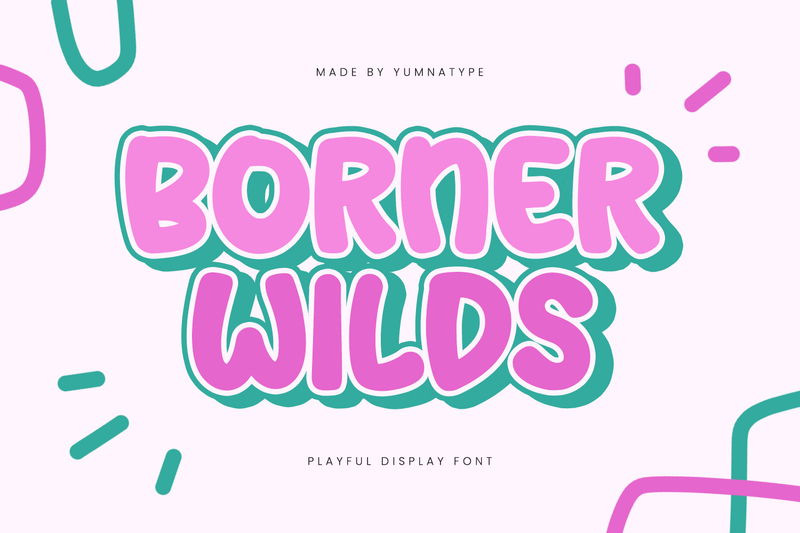
Borner Wilds presents a thick display font with bold letter characters, unique decorative details, and a playful all-caps look. Its low contrast and consistent letter proportions make it appear balanced and memorable, while also creating a strong, striking visual.
This font is suitable for various design needs such as logos, festival posters, product packaging, shop branding, or even merchandise that appears energetic and distinctive. With its strong and recognizable visual appearance, Borner Wilds can make a design look more unique, eye-catching, and impressive for the audience.
Fancies Toys
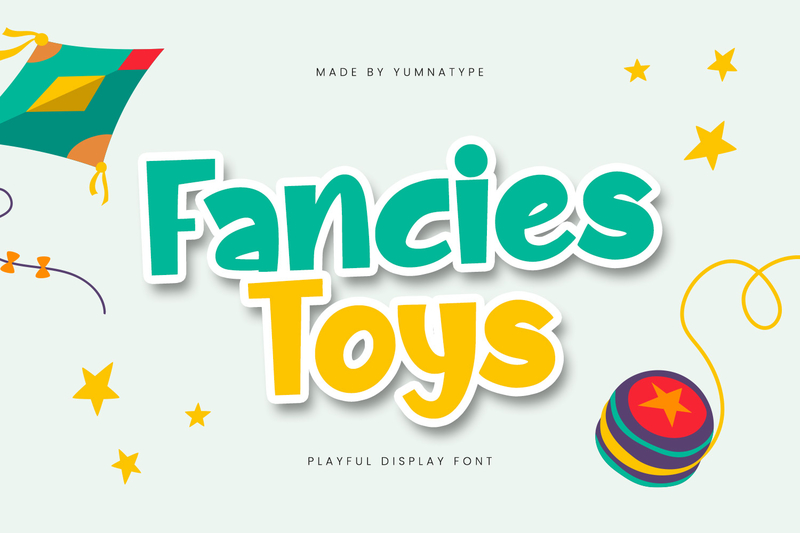
If you are looking for a font with a playful and cheerful feel, you should consider Fancies Toys. Its bold, rounded, and friendly letter characters make this font more attractive and easy to recognize in any design.
Fancies Toys is ideal for use in various design projects. These usages include branding children’s toys, event posters, social media content, and even YouTube thumbnails with a fun and eye-catching look. With an expressive and enjoyable visual, your design will feel livelier, warmer, and more memorable for the audience.
Nice Twins
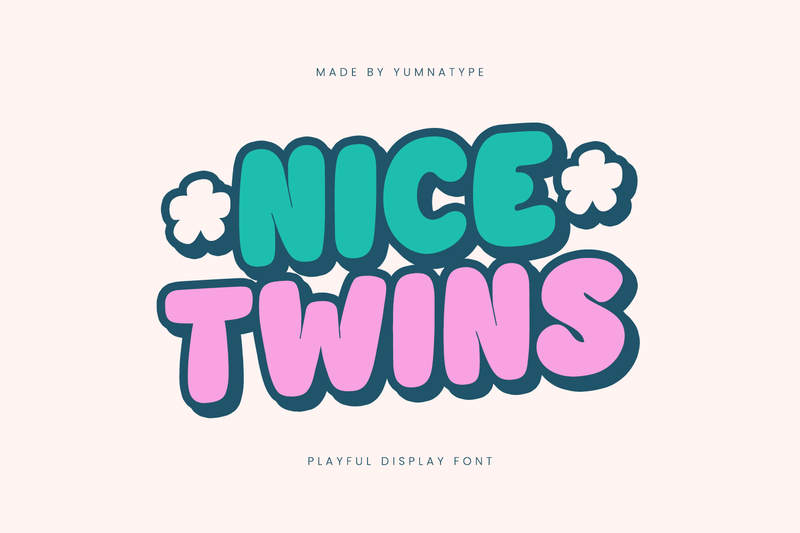
Looking fun, cheerful, and energetic, Nice Twins becomes an interesting choice in thick display font recommendations. This font can make your design livelier and more eye-catching. Its all-caps style features bold, rounded letterforms that create a friendly, playful, and expressive visual character.
The letters’ low contrast creates a smoother and more consistent appearance, making it suitable for various modern and colorful design concepts. This font is ideal for headlines, logos, posters, flyers, branding, and creative projects that require a bold, fun, and memorable appearance.
Spring Sounds
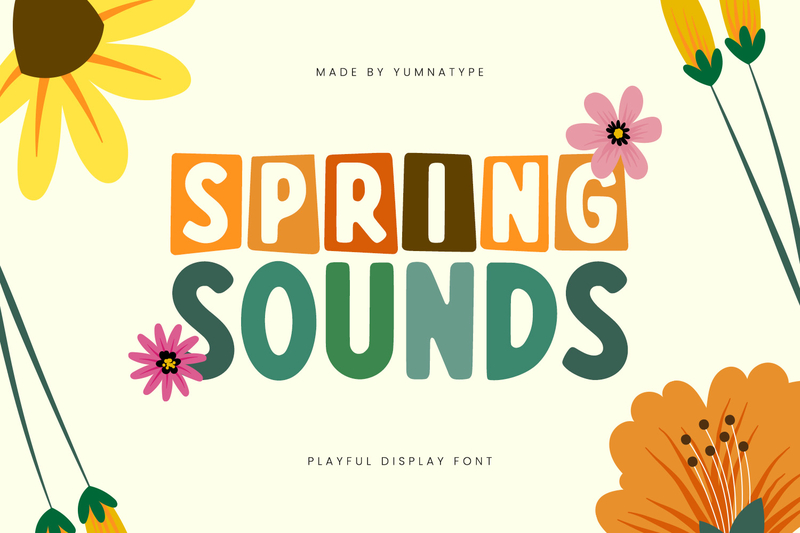
Colorful and energetic, Spring Sounds comes as a thick display font with a playful style that can make a design livelier and more fun. The combination of uppercase and lowercase forms in an all-caps style creates a unique visual that looks dynamic, expressive, and far from monotonous.
Spring Sounds’ bold letterforms, combined with low contrast and rounded corners, creates a friendly, gentle, and easy-to-recognize look in various sizes. That’s why this font is suitable for posters, branding, product packaging, and lively, colorful themed designs seeking eye-catching results.
Greny Wish
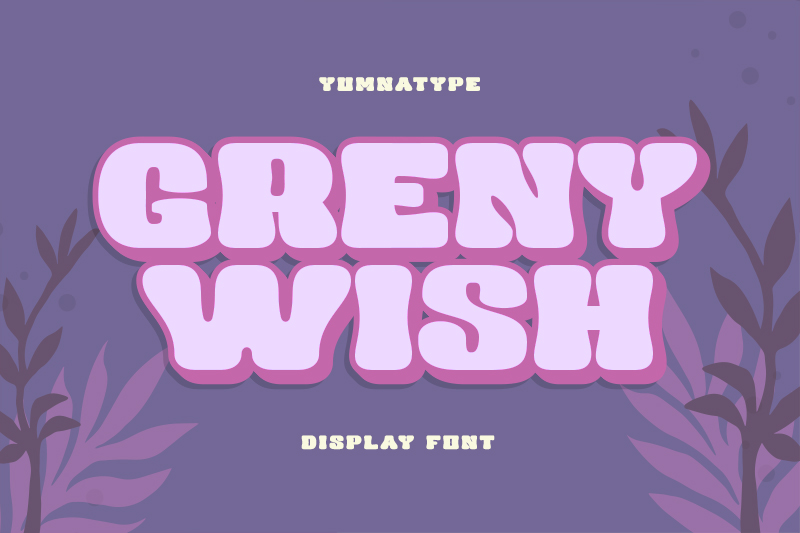
With its bold and characterful appearance, Greny Wish is a display font that can create a strong yet playful impression in various creative designs. This font is suitable for use on beauty product packaging, handmade product branding, promotional posters, and even social media banners that want a more modern and aesthetic look.
The all-caps style with very bold letterforms creates a dominant appearance, easily attracts attention, and effectively creates memorable visuals. Its low contrast creates a more solid, smooth, and friendly impression, making the design feel more attractive and memorable to the audience.
The Dormes
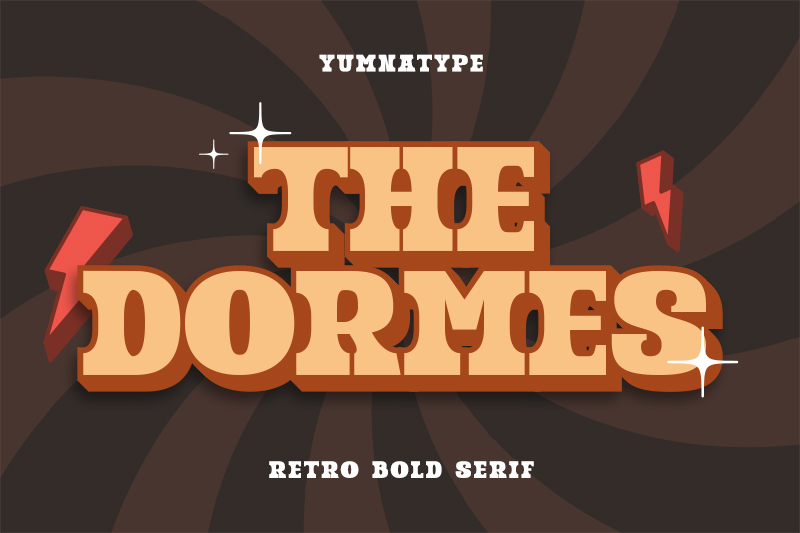
Carrying a strong retro feel and full of character, The Dormes is a serif display font with a bold, attention-grabbing all-caps style. Its bold letterforms combined with rounded corners create a distinctive, warm, vintage look while remaining modern for a variety of design needs.
The uniquely designed serif details add a classic touch, making each letter feel more expressive and memorable. This font is suitable for retro posters, logos, branding, product packaging, headlines, and creative content that seeks to present a visual aesthetic with a strong and bold vintage feel.
Duvetyn
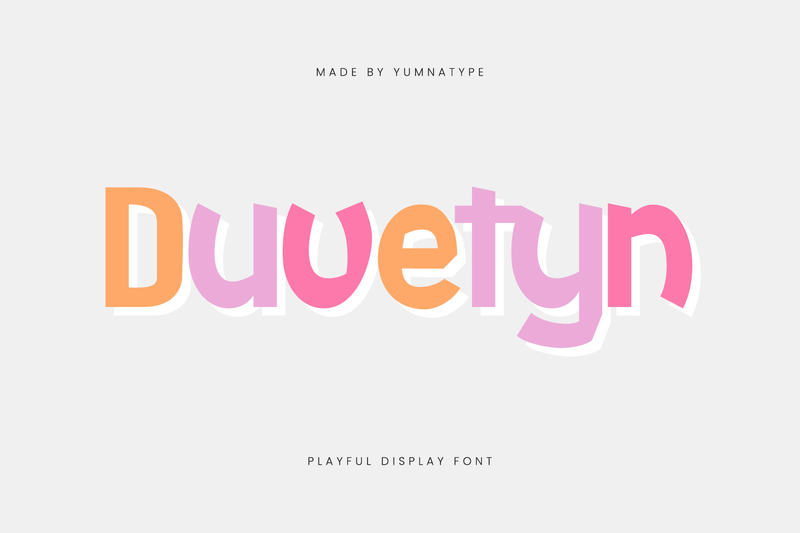
You can also find the font here
Bright, playful, and full of energy, Duvetyn is an attractive choice for making designs look more lively and attention-grabbing. Its solid letter thickness combined with unique character shapes creates a fun, expressive look that remains easy to read.
As a thick display font, Duvetyn is suitable for posters, branding, social media content, product packaging, and various creative projects that want a fresh and distinctive look. Its cheerful and modern visual style makes designs more fun, unique, and memorable for audiences.
Beanie Fresh
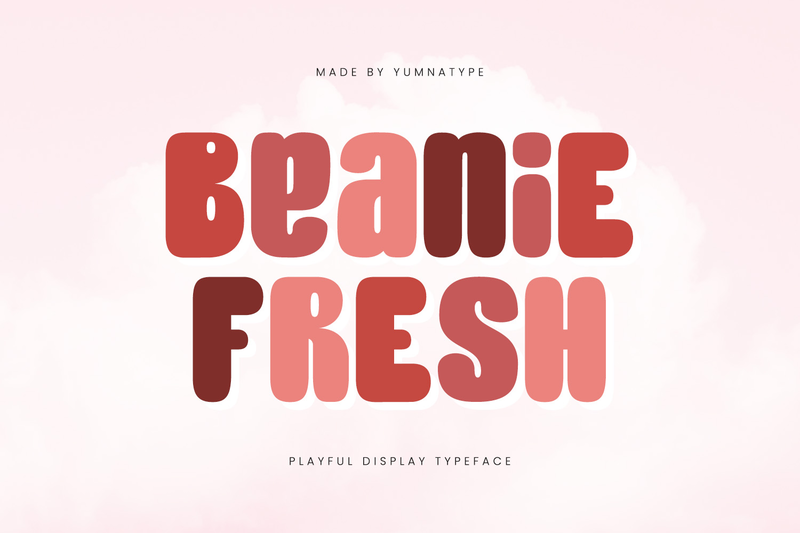
You can also find the font here
Looking sweet, friendly, and distinct, Beanie Fresh can make your design more playful and eye-catching. Its rounded letterforms with solid thickness, low contrast, and ligature support give a soft, harmonious look that is comfortable to see in various visual needs. This font is suitable for branding, posters, product packaging, headlines, and lively, colorful, modern-themed social media content.
Bold Toast
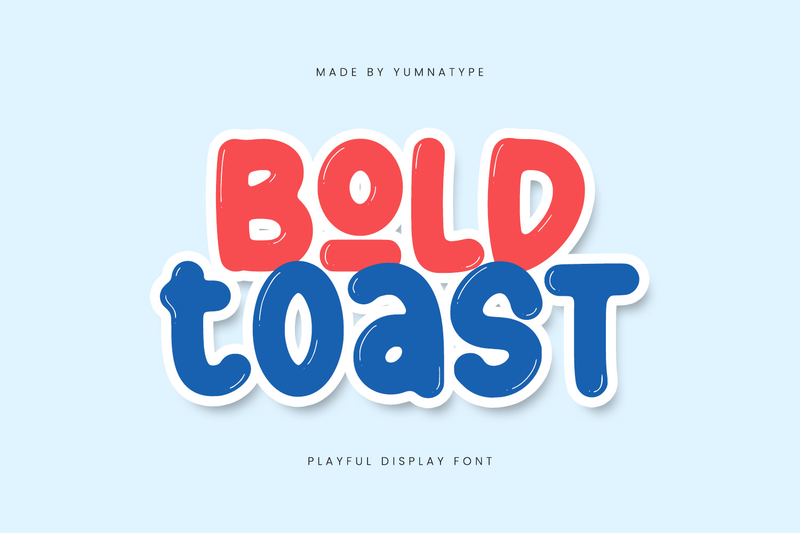
You can also find the font here
Bold Toast presents a playful and energetic bubbly style for a more fun and eye-catching design. Its rounded letterforms with solid thickness create a gentle, friendly, and memorable look. Moreover, the gentle and consistent strokes make this font flexible in various creative visual concepts. That’s why Bold Toast is ideal for designs with cheerful themes. These include posters, branding, product packaging, and social media content seeking a more expressive and striking impression.
Bowlike
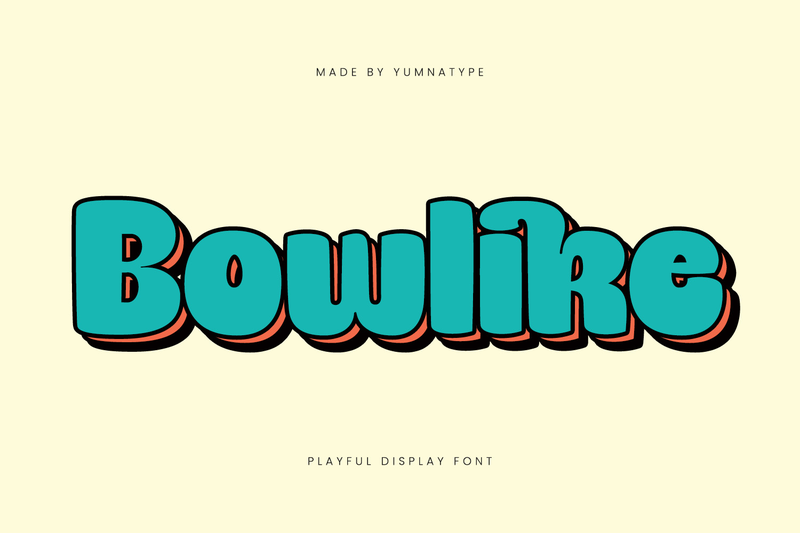
You can also find the font here
Bowlike presents a thick display font with a playful style that can make a design look livelier and energetic. Its dynamic letterforms with solid thickness create a strong visual that catches attention. Meanwhile, the low contrast gives a softer, consistent look that is comfortable to see.
This font features ligatures that add a unique touch in every text, resulting in a dynamic and expressive design. Hence, Bowlike is ideal for logos, posters, flyers, branding, print media, and various creative designs with fun, colorful, and modern themes.
Ranhart
You can also find the font here
For you who like bold vintage, Ranhart is the perfect choice to create an elegant, playful vintage look. This font has a balanced letter thickness, a contrasting stroke weight, and rounded letterforms that give a friendly, gentle, and distinct impression. Moreover, the alternates feature creates varied and attractive display texts for various creative design needs.
Krapfen
You can also find the font here
With its playful and energetic handwritten style, Krapfen makes designs more expressive and attention-grabbing. The bold uppercase letters, contrasting with the bold font, create a strong visual impact, while the rounded corners create a friendly and playful feel.
This combination of characters makes this font unique, recognizable, and appealing for use in various creative design applications. This font is effective for various designs, including posters and branding, that aim to be more engaging and memorable.
Conclusion: The Best Thick Display Font for a More Standout Design
Using a thick display font can make your design bolder and more eye-catching, giving it a distinct visual character. Starting from the font style with retro nuances like Borner Wilds and Ranhart to the playful, modern style like Nice Twins and Beanie Fresh.
Every font has its own uniqueness that can be adjusted to your design needs. With the right font selection, your design will appear more aesthetic and capable of enhancing your visual identity effectively.